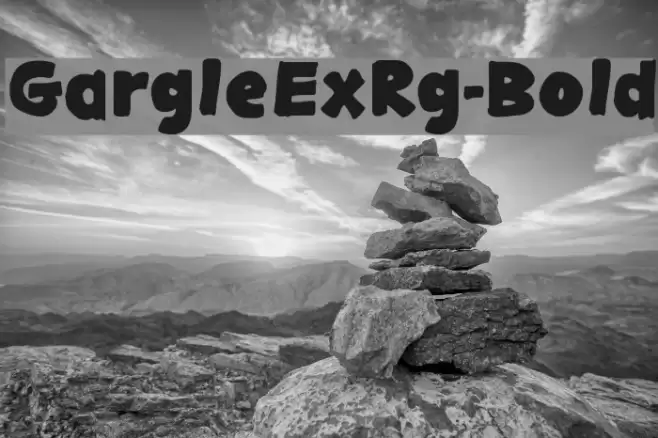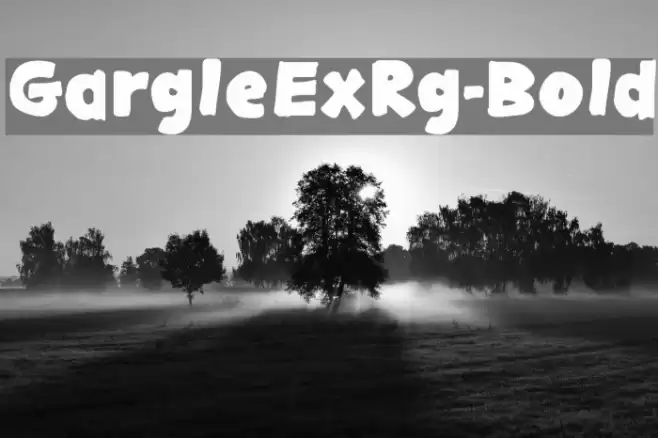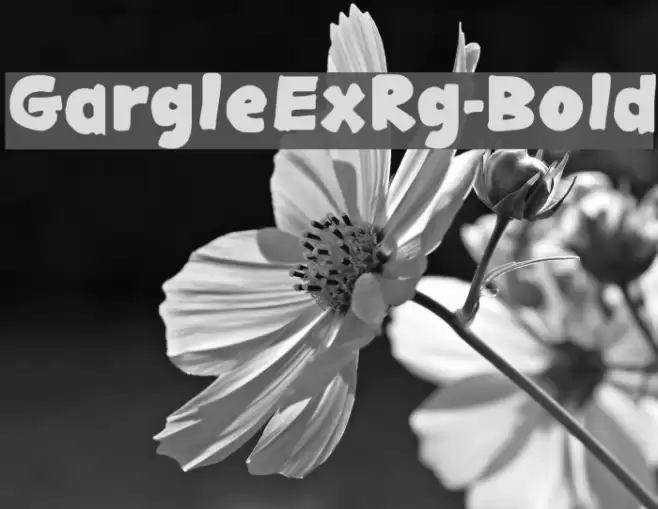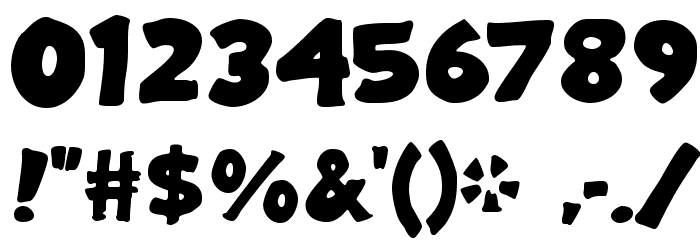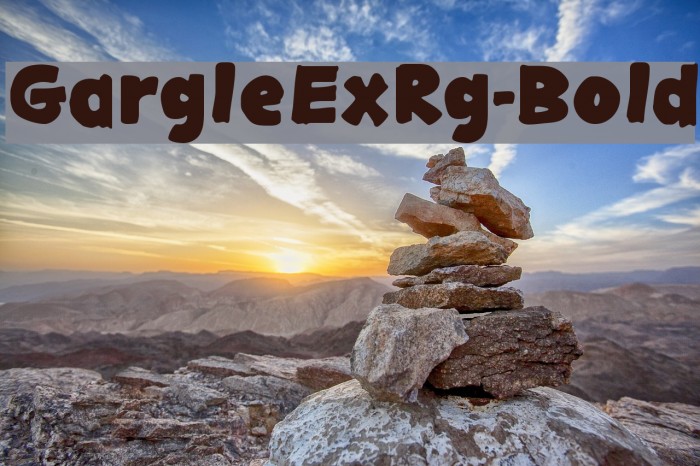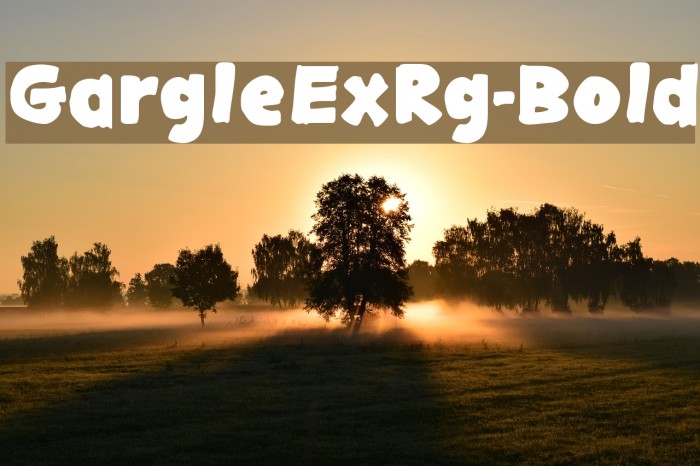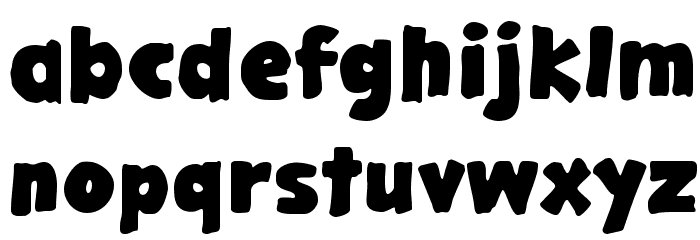
GargleExRg-Bold Font
GargleExRg-Bold Description
This font is characterized by its bold, playful, and slightly irregular shapes, giving it a whimsical and informal appearance. The letters are rounded with a consistent thickness, creating a friendly and approachable feel. The uppercase and lowercase letters maintain a consistent style, with a slight tilt that adds to the dynamic look. The numbers and special characters follow the same design principles, ensuring uniformity across the typeface. This font is ideal for projects that require a fun and engaging visual element, such as children's books, playful branding, or creative posters.
A bold, playful font with rounded, slightly irregular shapes from Comic fonts.
- Proposed Projects: Children's books, playful branding, creative posters, informal invitations.
- Overall Style: Playful, Informal